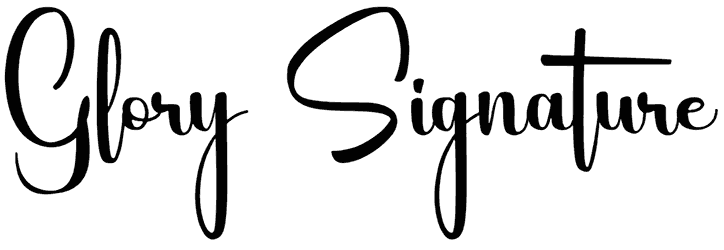
Glory Signature Font
Need a modern and casual form for your present design? Test this signature font, named Glory Signature. With a smooth hand-lettering face, this handwritten font is an apt item to be paired with various themes and projects, namely greeting cards, invitations, planners, or similar. Glory Signature doesn’t offer numbers but still remains an ace option for a chic project.
Glory Signature – A Modern Script Font. Giving you a simple, yet gorgeous solution to your branding. This font is more than just another script font. It encapsulates the essence of elegance and modernity. With its clean script-type design and curved indentations, this font will take your projects to the next level! Use it for headings, logos, business cards, printed quotes, invitations of all sorts, cards, packaging, and your website or social media branding.What’s included:
• Ligatures• Stylistic Sets
• Swashes
• Multilingual Supports